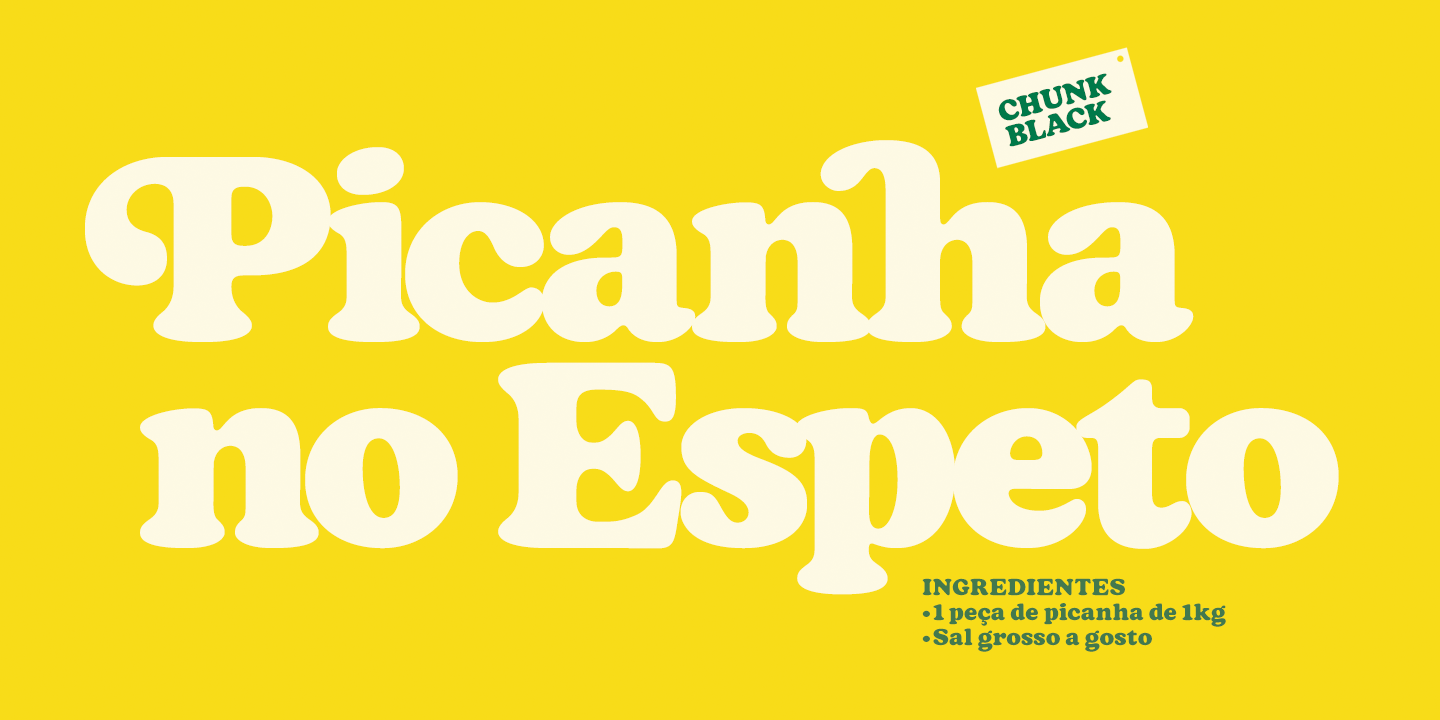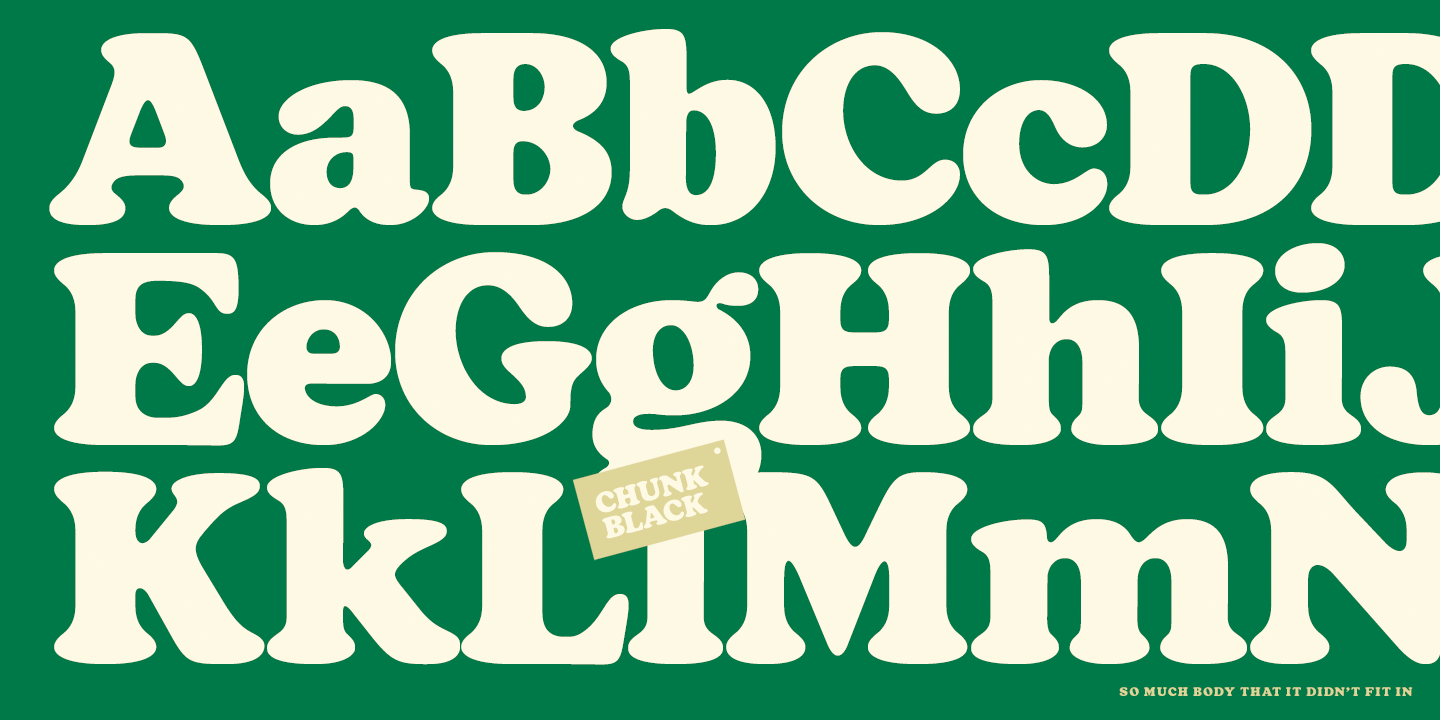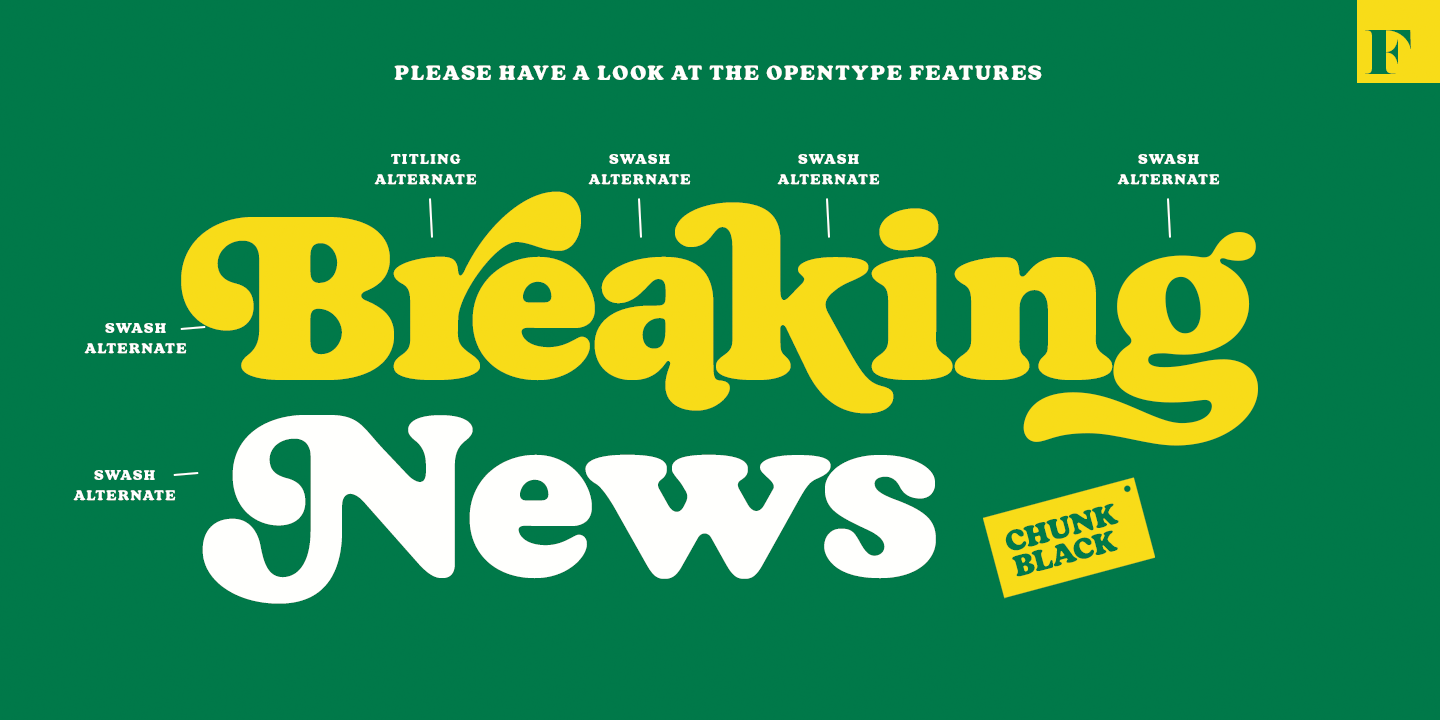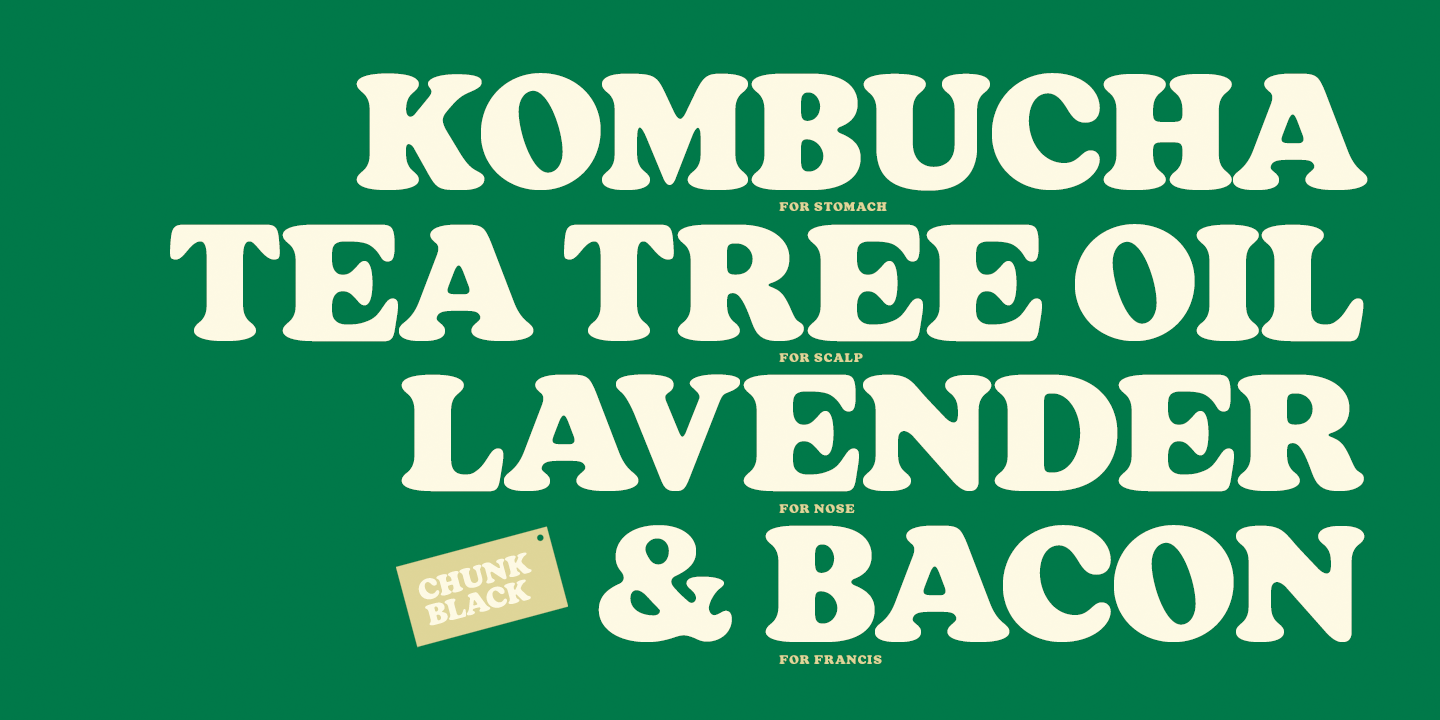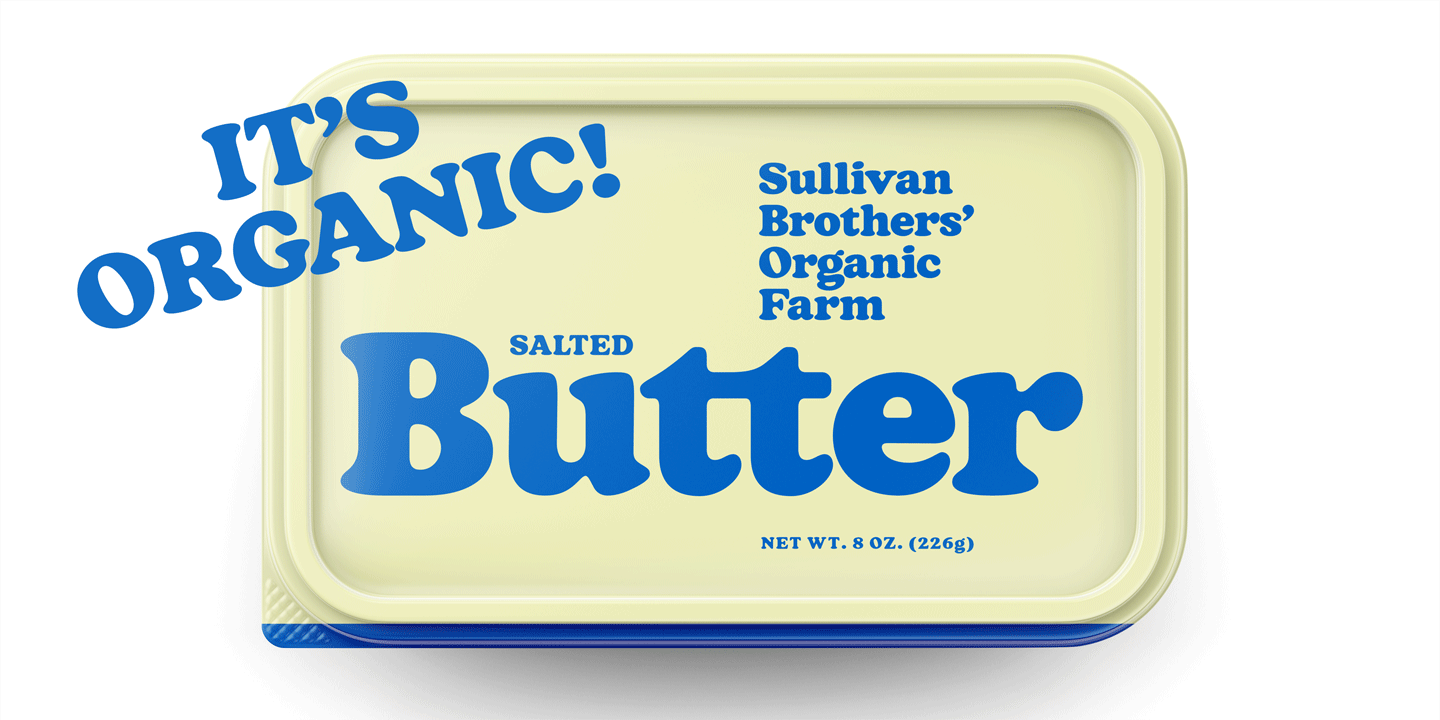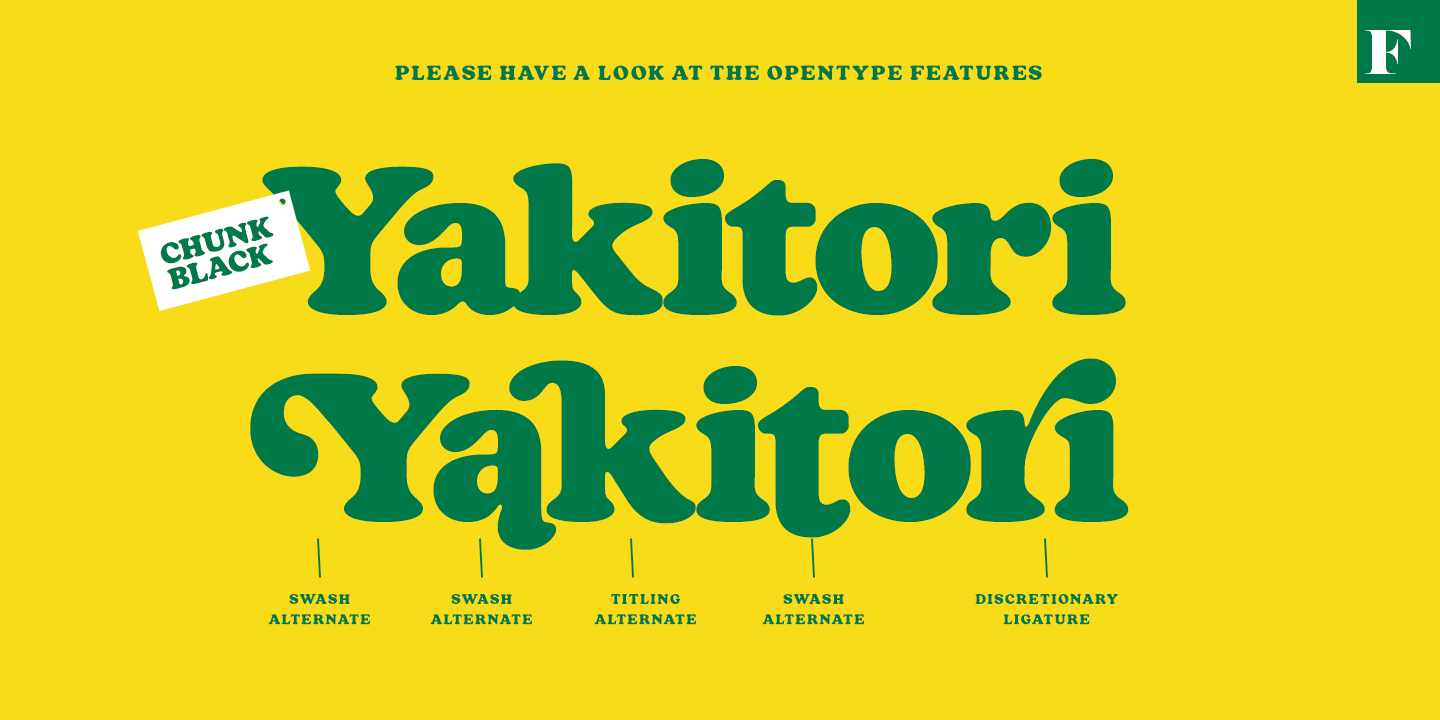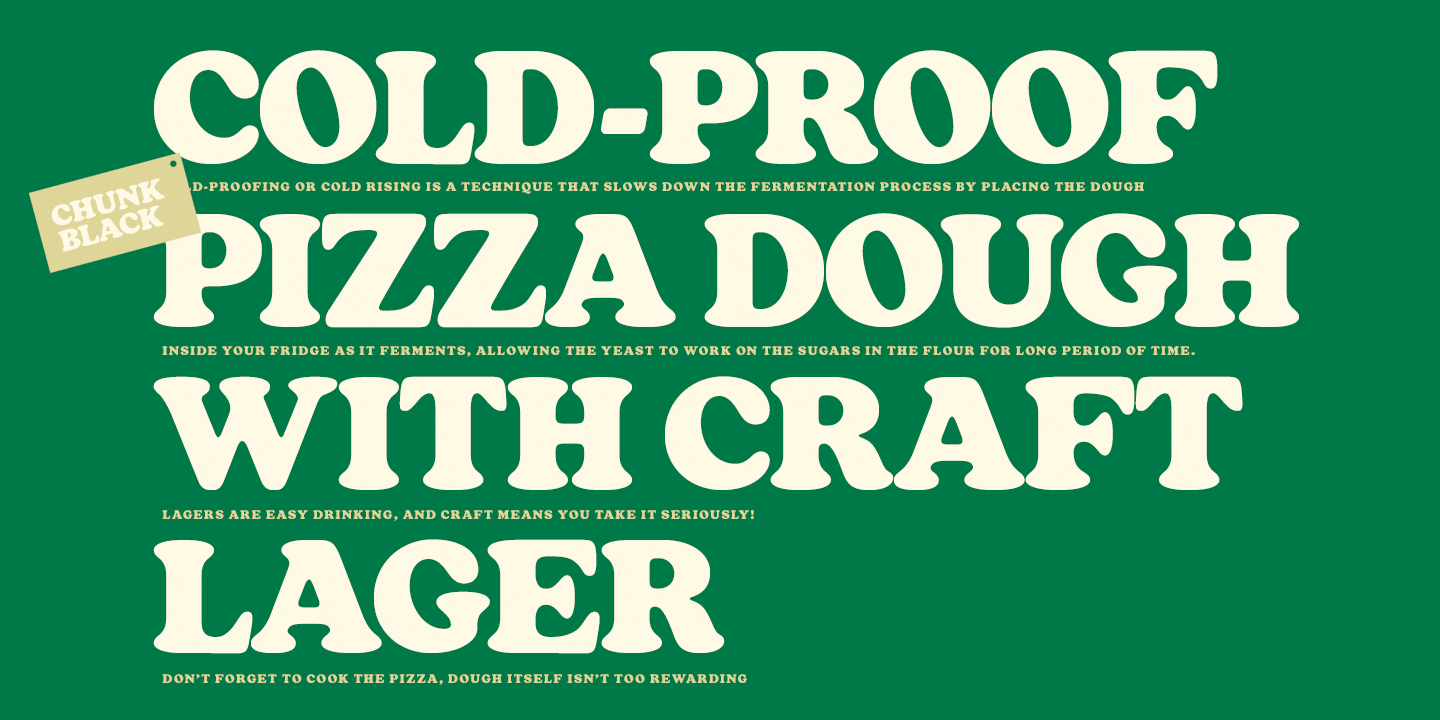
Inspired by the more than hundred years old classic Cooper Black, Chunk Black features a hefty character with rounded serifs and a soft yet sturdy overall appearance. Chunk Black provides a timeless and friendly feel and it\’s very suitable for product…